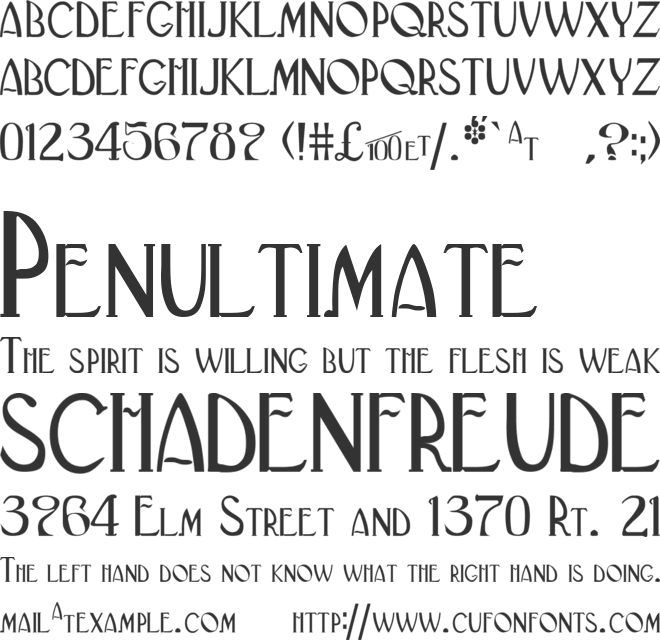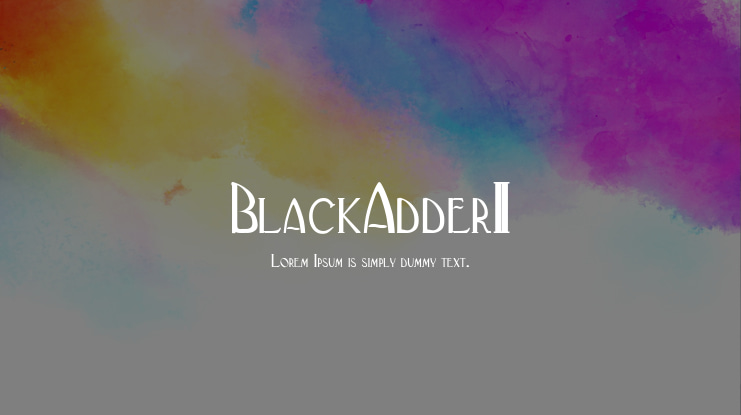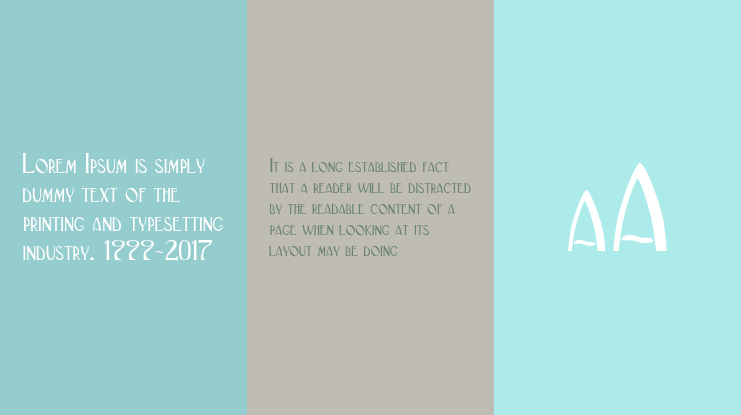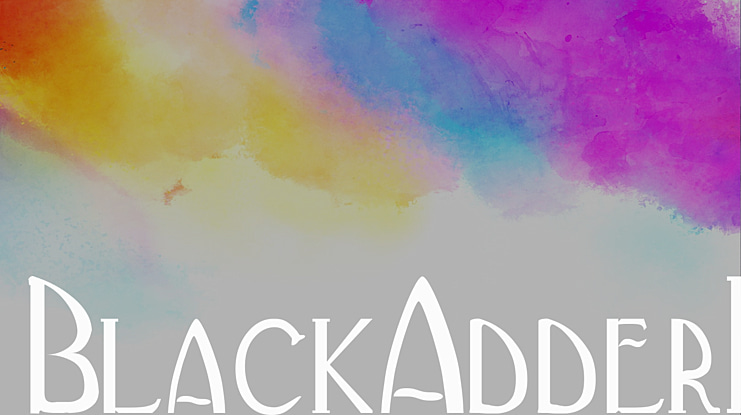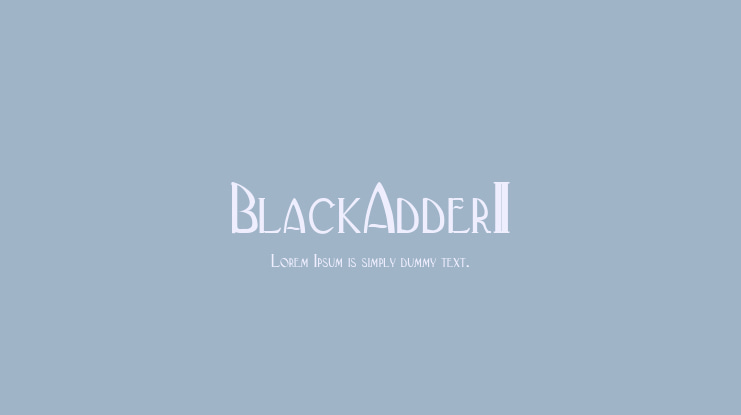
BlackAdderII Font
It is based loosely on the
credits of the BBC Series "Black Adder II" but due to the quality
of the picture on my TV and several other unknown causes, it is
more geometric, and has some unique characters that are not in
any way like those I saw.
Freeware by Bruce Marx, 1991, based loosely on the series.